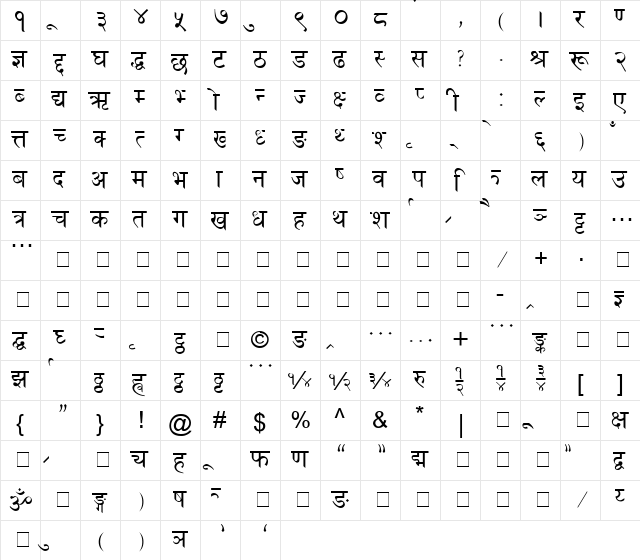
Siddhi Normal
Design Context for Siddhi Typeface
Siddhi takes a measured approach to typography — its balanced proportions and neutral character make it a reliable workhorse for both digital and print work.